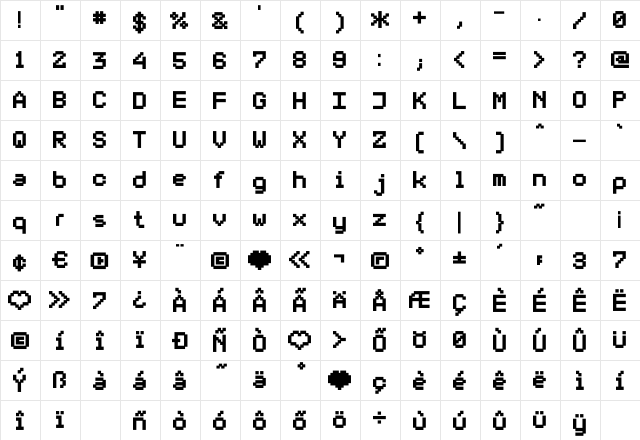
DS VDOTXT1 Regular
Design Context for DS VDOTXT1 Typeface
DS VDOTXT1 celebrates the constraints of early digital type, turning pixel geometry into a distinctive and immediately recognisable style.
Well-suited to indie game interfaces, retro computing aesthetics, and pixel art-adjacent design work.
Pro Tip: Use DS VDOTXT1 at sizes that align with its pixel grid for the sharpest rendering — scaling to non-integer multiples can introduce unwanted blur.